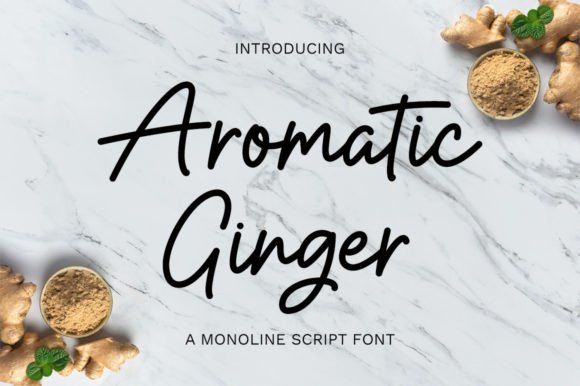
Dive into the world of Aromatic Ginger, a breathtaking script font that exudes beauty, poise, and sophistication. Its smooth curves and elegant lines dance across the page, creating a visual symphony that captivates and enchants.
Crafted with the utmost care by Graphix Line Studio, Aromatic Ginger is a font that speaks to the heart. Its delicate strokes and graceful flourishes evoke a sense of romance, nostalgia, and timeless elegance. It is a font that breathes life into words, transforming them into works of art.
Aromatic Ginger's versatility knows no bounds. Whether you're a creative professional seeking to elevate your branding, a designer looking to add a touch of charm to your editorial layouts, or a photographer seeking to infuse your images with an ethereal glow, this font is your perfect companion.
With Aromatic Ginger, you can effortlessly craft logos that exude sophistication, design invitations that radiate warmth and elegance, and create social media graphics that capture attention and ignite engagement. Its timeless beauty transcends trends, ensuring that your creations remain captivating for years to come.
But Aromatic Ginger is more than just a font; it's an experience. It's a journey into the realm of creativity, where imagination knows no limits. Embrace the allure of Aromatic Ginger and unlock a world of possibilities.
So, dive into the world of Aromatic Ginger today and let your creativity soar. Experience the magic of a font that transforms words into art and breathes life into your designs. With Aromatic Ginger, the possibilities are endless.